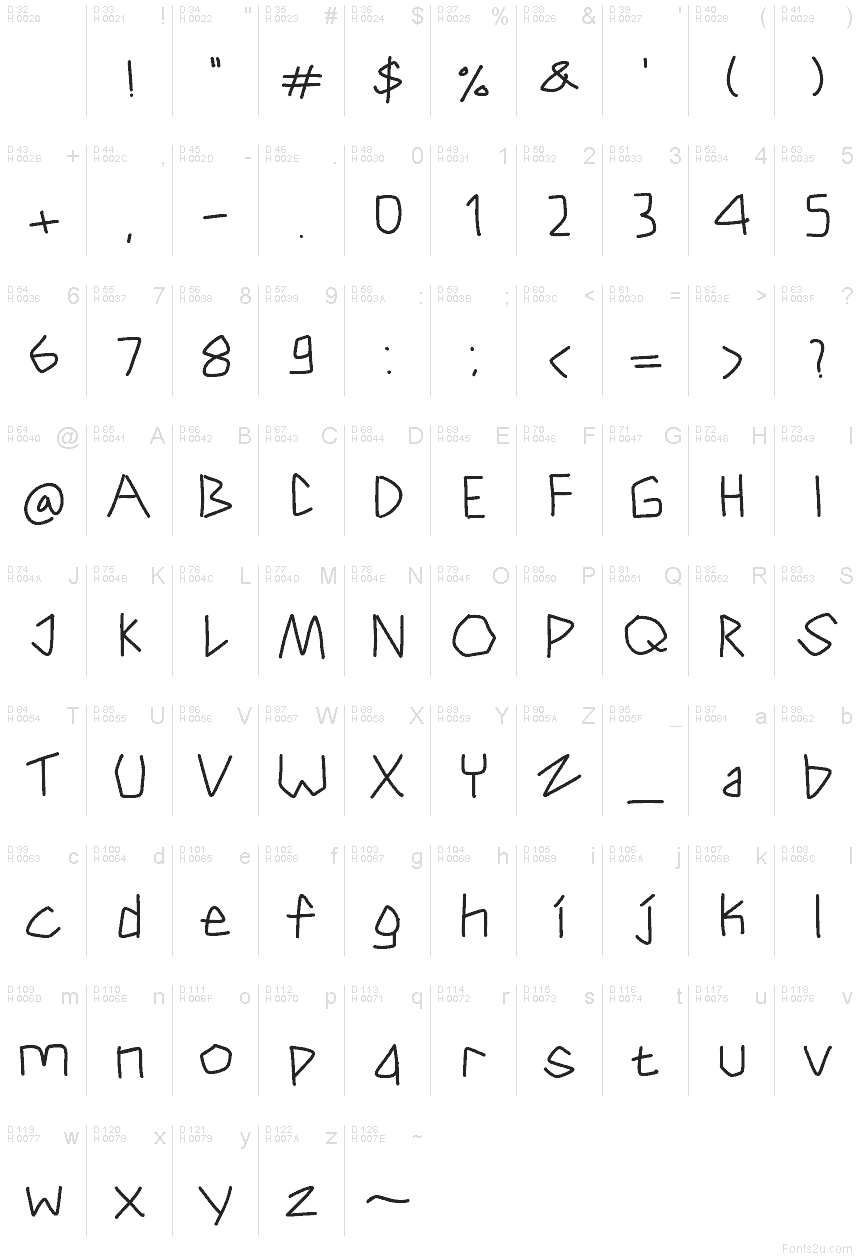
Triangle Break
Triangle Break font, designed by Origin Type, is a free handwritten font that captures a whimsical and casual style. It has an organic shape that flows naturally across each character creating a relaxed mood in its many applications. Classic or contemporary projects can both benefit from the hand-drawn quality this typeface brings.
Banner designs, visual identity designs, typography posters, invitation cards, magazines; there are few design types Triangle Break wouldn’t excel in. Other usage ideas include web fonts for digital platforms like e-commerce stores or apps.